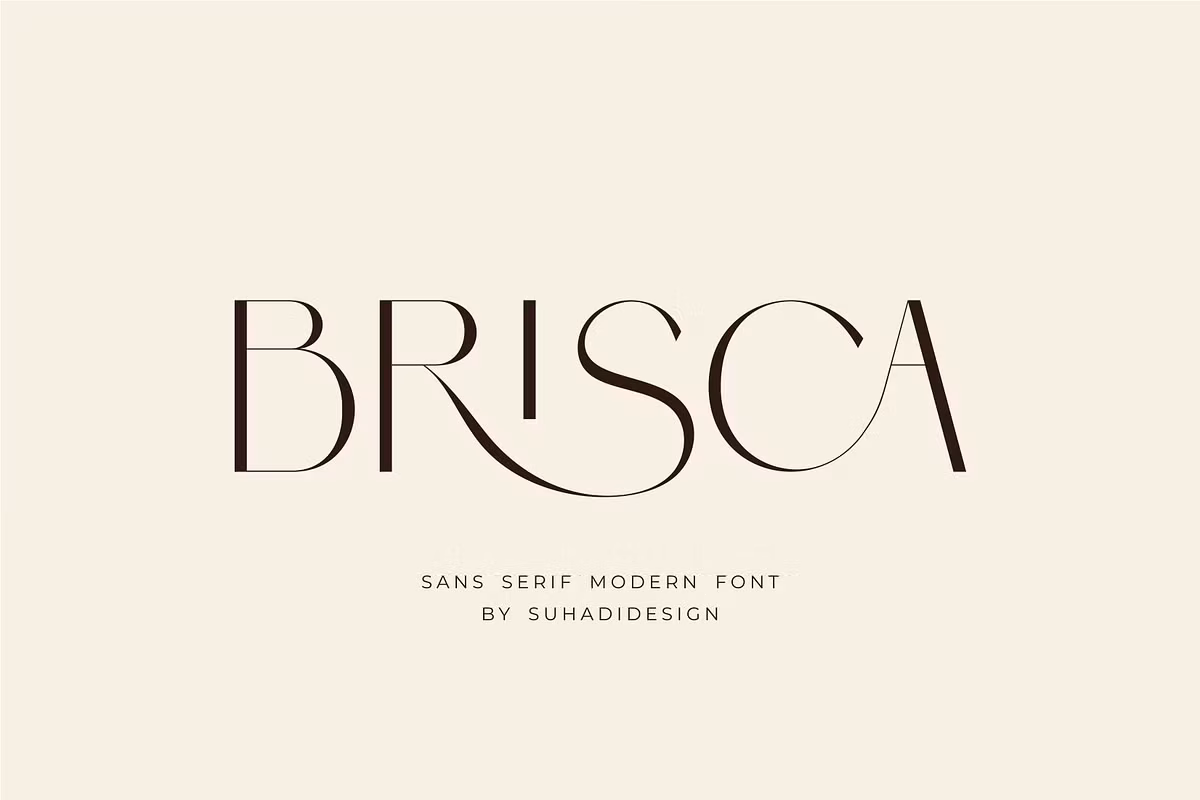
Brisca - Sans Serif Modern Font Free Download
Brisca - Sans Serif Modern Font Free Download is a sleek, contemporary typeface designed to bring clarity and style to your designs. With its clean lines and geometric shapes, this font is perfect for creating modern logos, websites, branding, and editorial layouts. Its minimalist design ensures readability and a professional appearance, making it ideal for both corporate and creative projects. Whether you’re working on a tech brand, a modern magazine, or a creative marketing campaign, Brisca - Sans Serif Modern Font Free Download offers a versatile and polished style. Test it in personal projects before purchasing a commercial license and add a modern edge to your designs with this beautifully crafted sans serif font.